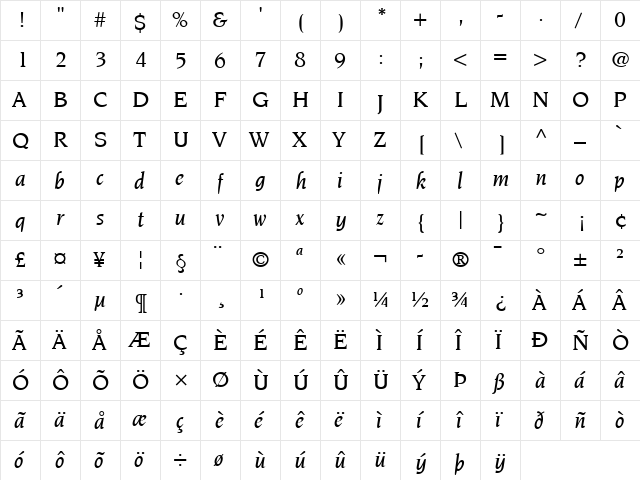
Novarese LT Medium Italic Font Preview
Design Context for Novarese LT Medium Typeface
Novarese LT Medium offers clean, dependable letterforms without strong stylistic allegiance, making it a practical choice for designers who need flexibility. The dynamic lean of this cut emphasises speed and emphasis in any layout. Its slender proportions lend an understated elegance to any composition.
Pro Tip: Try Novarese LT Medium for annotation and caption copy alongside an upright companion — the contrast in angle creates a dynamic but ordered typographic system.